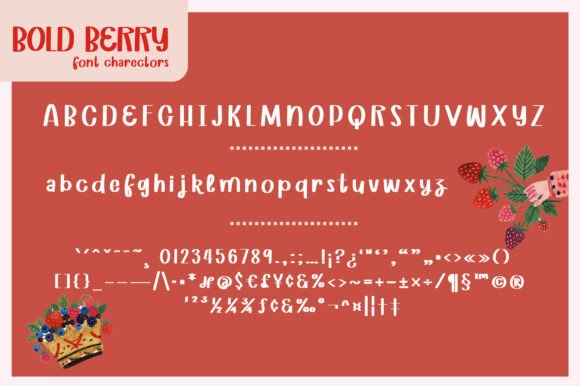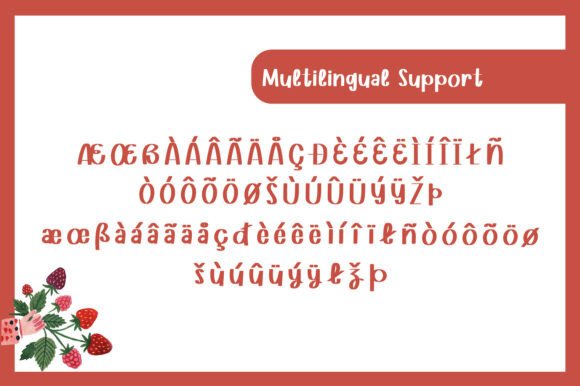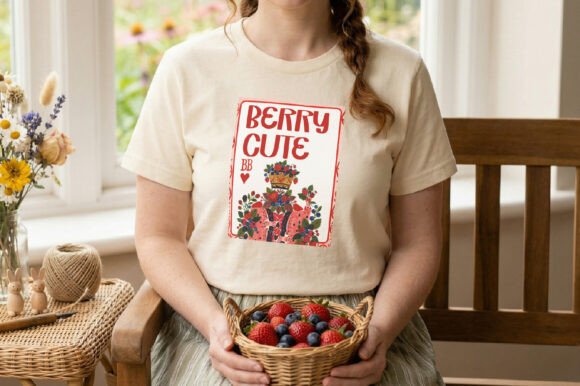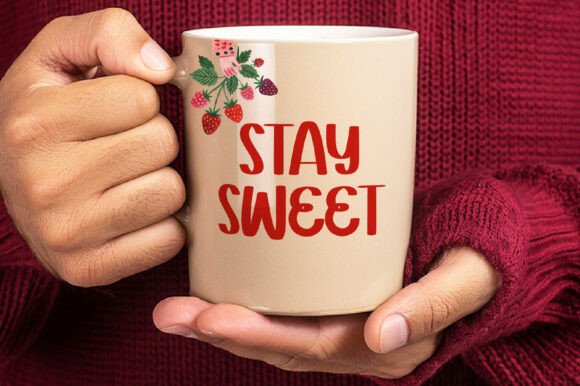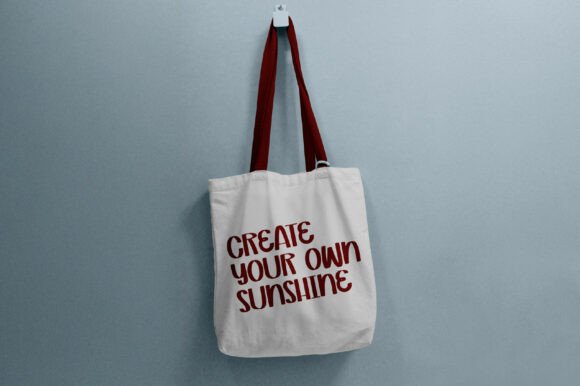
Introducing Bold Berry: The Ultimate Chunky and Playful Handwritten Font
Are you tired of using the same old fonts in your creative projects? Look no further! We’re excited to introduce Bold Berry, a thick, chunky, and playful handwritten font that’s sure to bring a fun and happy vibe to all your designs. With its smooth, bubbly lettering, this font is incredibly easy to read and perfect for cutting machines.
What Makes Bold Berry So Special?
Bold Berry is more than just a font – it’s a game-changer for designers and crafters alike. Here are some of its key features:
- Uppercase & Lowercase letters: Whether you’re designing a logo, a t-shirt, or a digital planner, Bold Berry has got you covered with both uppercase and lowercase letters.
- Numbers & Basic Punctuation: This font includes all the numbers and basic punctuation marks you need to create a wide range of designs.
- Multilingual Support: Bold Berry includes accented characters for Western and Central European languages, making it a great choice for designers who work with international clients.
- Smooth Edges: Optimized for crafting and cutting machines like Cricut and Silhouette, Bold Berry ensures a smooth and precise cut every time.
Bold Berry is an incredibly versatile font that can be used for a wide range of projects, including:
- Crafting: Create beautiful and unique crafts with Bold Berry, from paper crafts to vinyl decals.
- SVG designs: This font is perfect for creating SVG files for cutting machines, making it a great choice for crafters and makers.
- Quote graphics: Add a playful touch to your quote graphics with Bold Berry’s fun and bubbly lettering.
- Kids’ apparel: Design fun and colorful t-shirts, onesies, and other kids’ apparel with Bold Berry.
- Greeting cards: Create beautiful and unique greeting cards with Bold Berry’s playful lettering.
- Digital journaling: Add a personal touch to your digital journal with Bold Berry’s fun and playful font.
- Print-on-demand products: Design a wide range of print-on-demand products, from mugs to tote bags, with Bold Berry.
Why Choose Bold Berry?
So why choose Bold Berry over other fonts? Here are just a few reasons:
- Unique and playful design: Bold Berry’s chunky and playful lettering is sure to make your designs stand out.
- Easily readable: This font is incredibly easy to read, making it perfect for a wide range of projects.
- Multilingual support: Bold Berry includes accented characters for Western and Central European languages, making it a great choice for international designers.
- Optimized for cutting machines: This font is optimized for cutting machines like Cricut and Silhouette, making it perfect for crafters and makers.